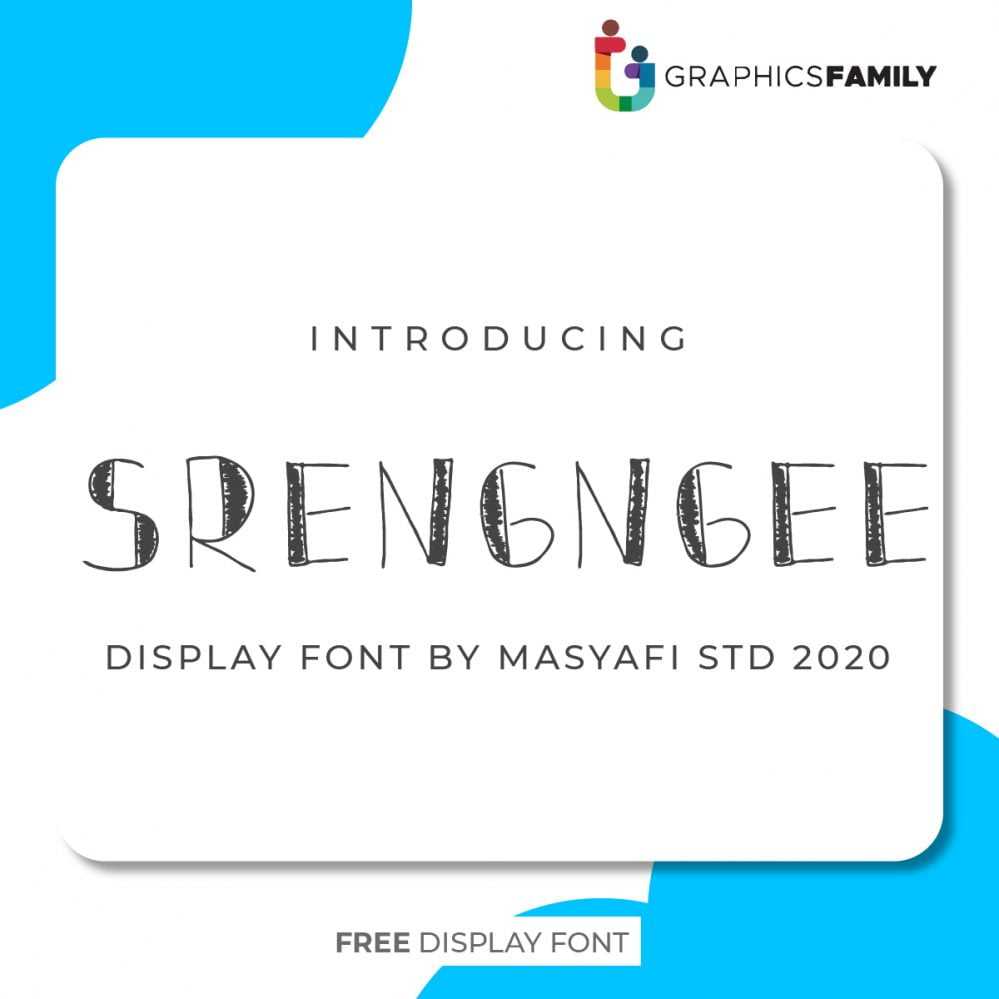
Srengngee Font
Srengngee Font Srengngee is a cute and friendly handwritten font. It features sweet and simple characters, and as a result it matches a wide range of designs. Add it to your Christmas letters, cards, or anything that needs a natural touch.